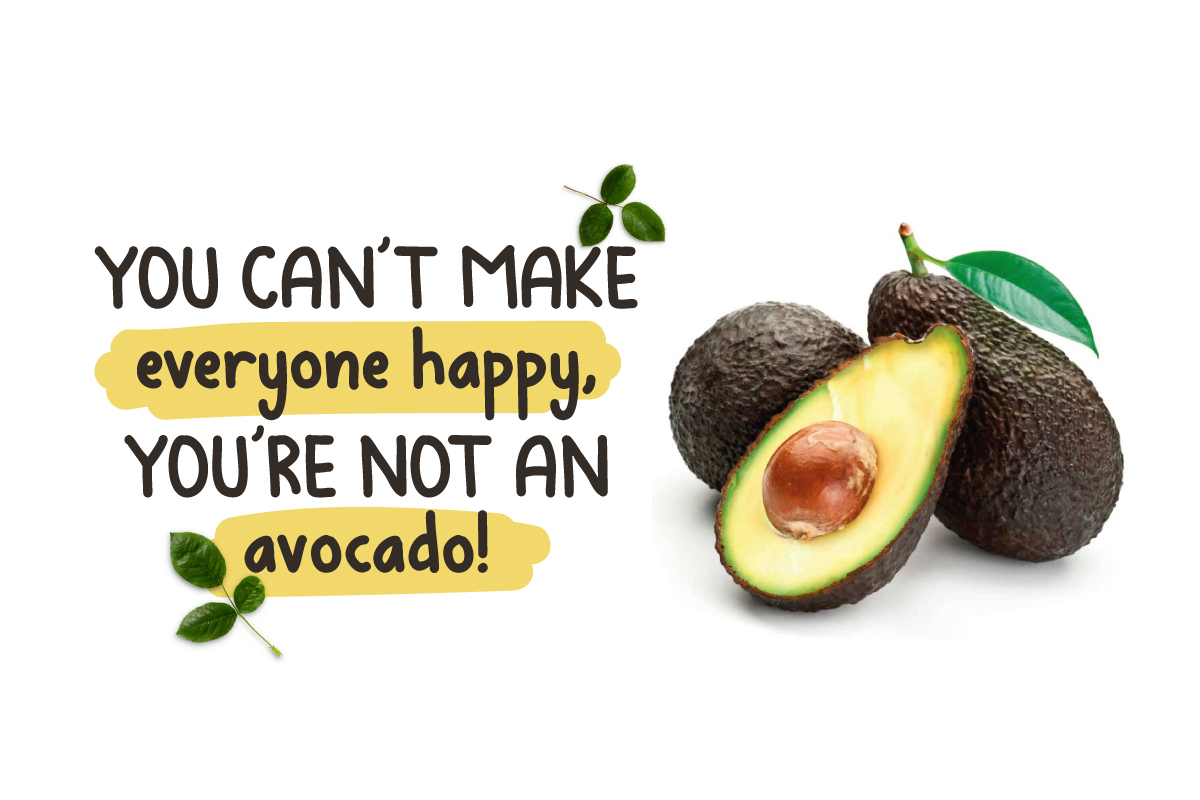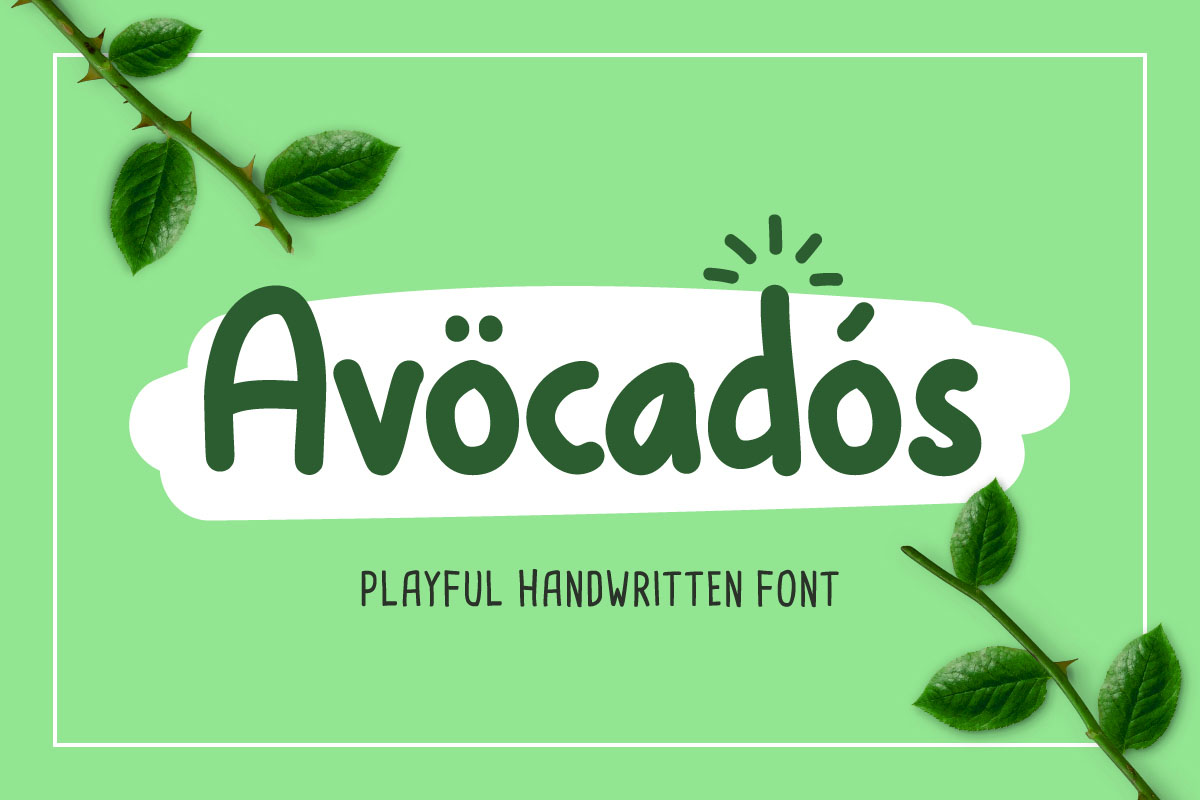
Avocados Script
Avocados Script Font
Introducing Avocados Typeface – a handwritten font that is very fresh and unique style handmade. Avocados Typeface is perfectly suited to logo, tationery, poster, apparel, branding, wedding invitation, card, tagline, layout design, and much more !!